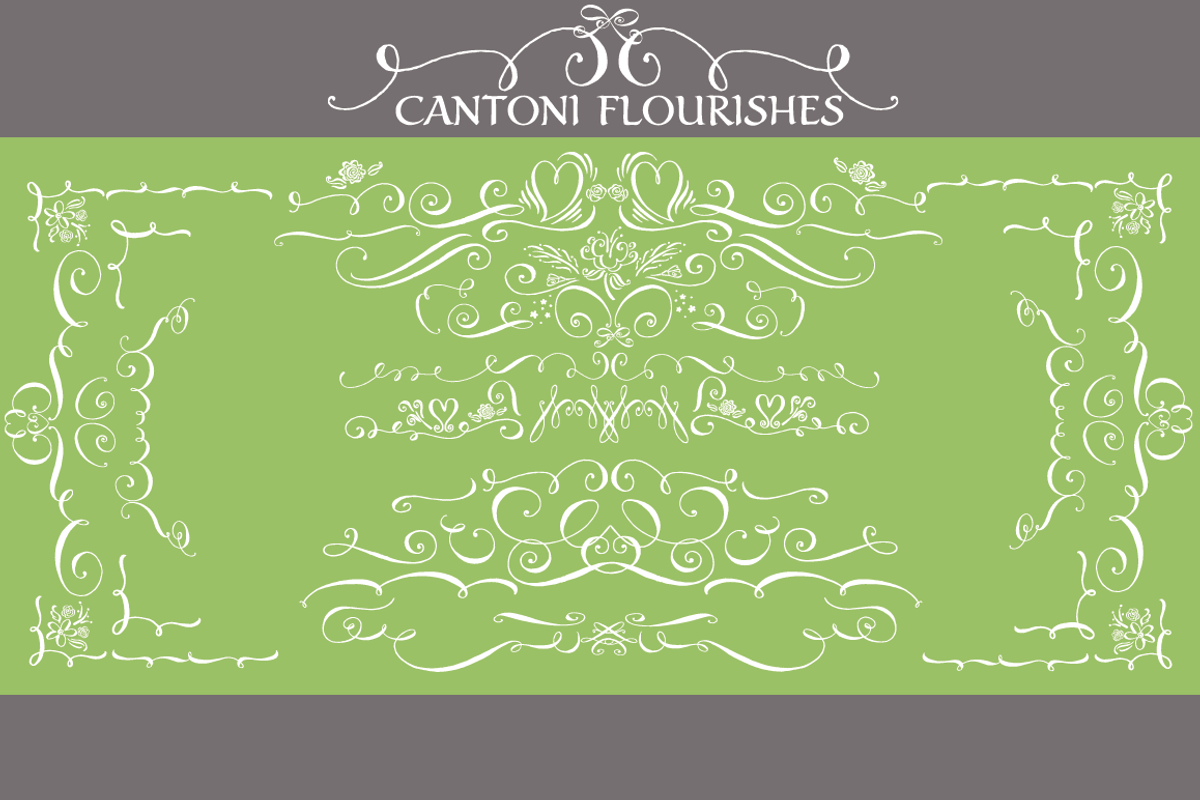
Cantoni Font Flourishes
Cantoni Font Flourishes by Debi Sementelli is a font selected for branding, posters, packaging, typography.
- The Cantoni Flourish font contains 84 flourishes that can be used to create borders, unique ornaments and add whimsy to your designs.
Why Cantoni Font Flourishes is worth a look
Cantoni Font Flourishes by Debi Sementelli fits naturally into Branding, posters, packaging, typography.